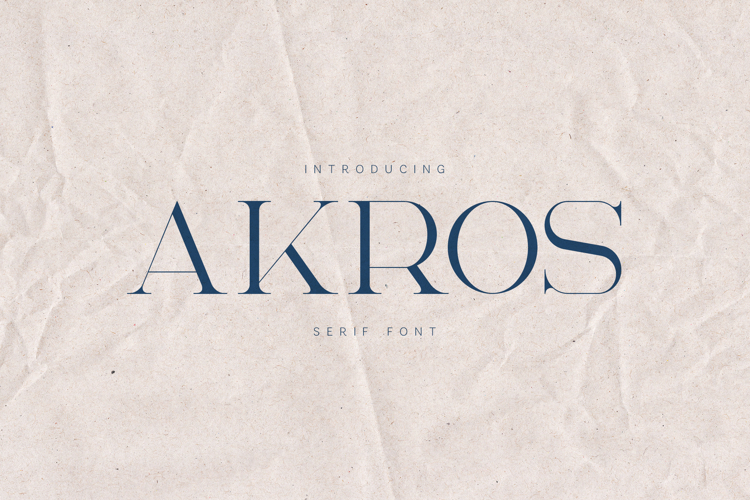
Akros Elegant Serif Font
Akros is an elegant serif font defined by precision, balance, and quiet sophistication. With its slender proportions, sharp terminals, and refined contrast, Akros delivers a modern classic aesthetic that feels intellectual, calm, and timeless.
Designed for editorial layouts, magazines, book covers, branding, posters, cultural projects, and premium typography, Akros excels where clarity and elegance are essential. Its clean construction allows content to breathe, while subtle details add character without distraction.
Akros works beautifully in large headlines and titles, offering a confident yet understated presence. Its classic roots combined with contemporary restraint make it ideal for fashion editorials, publishing, luxury branding, and thoughtful visual systems.
The font includes uppercase and lowercase letters, numerals, punctuation, symbols, and extensive multilingual support, ensuring professional and international usability.
If you’re looking for a serif font that feels intelligent, refined, and quietly powerful, Akros brings modern elegance with editorial discipline.